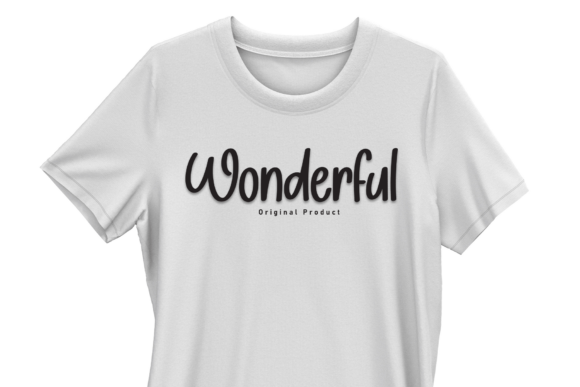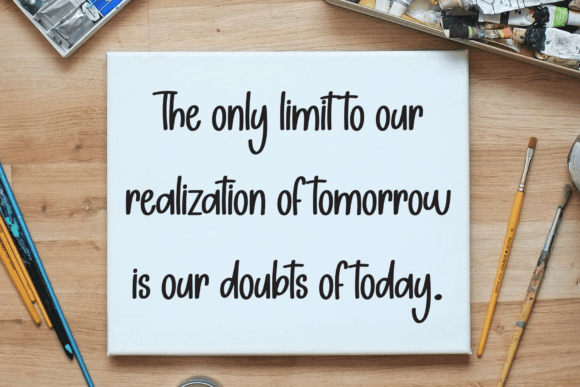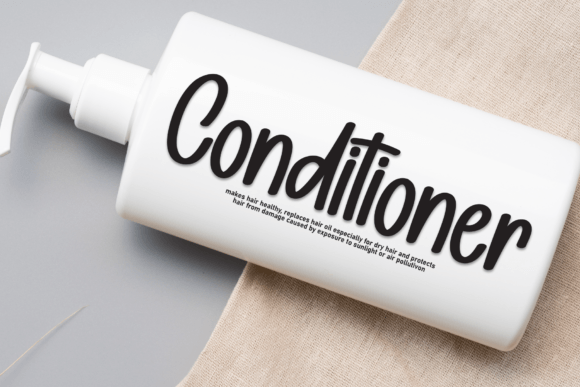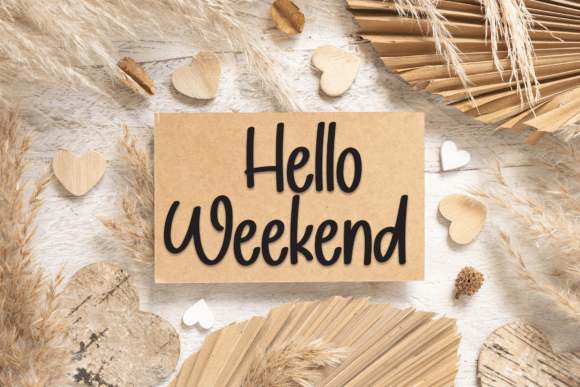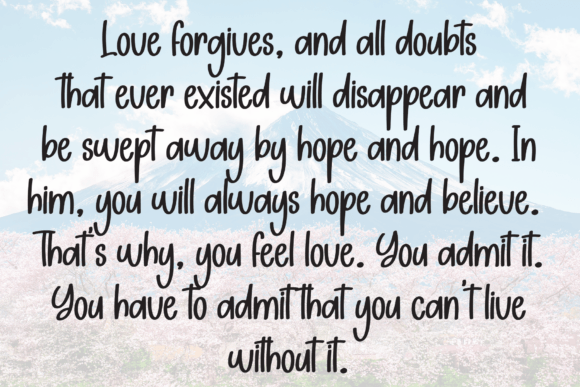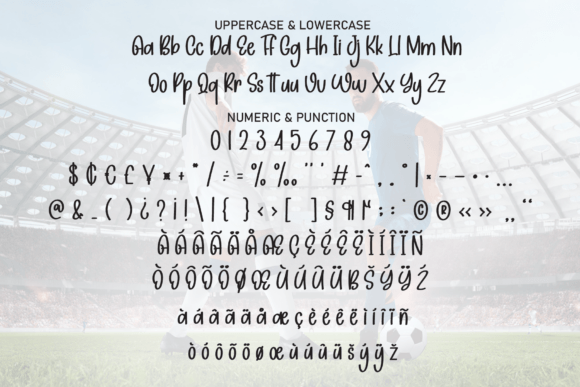
Introducing Football Match Font: The Ultimate Choice for Sports-Themed Designs
Are you a designer or crafter looking for a font that embodies the excitement and energy of football? Look no further than Football Match Font, a bold, handwritten font that’s perfect for creating stunning designs related to football, games, and fun events!
What Makes Football Match Font So Special?
Football Match Font is a unique and eye-catching font that’s specifically designed to capture the spirit of sports. Its bold, playful style and strong letters make it an ideal choice for creating attention-grabbing designs that are sure to stand out. Whether you’re designing a poster, flyer, or social media graphic, Football Match Font is the perfect choice for adding a touch of excitement and energy to your work.
Key Features of Football Match Font
- Bold and Handwritten Style: Football Match Font features a bold, handwritten style that’s perfect for creating eye-catching designs.
- Strong Letters: The font’s strong letters ensure that your designs are clear and easy to read, even at smaller sizes.
- Playful and Fun: Football Match Font has a playful and fun vibe that’s perfect for designs related to football, games, and fun events.
- Highly Versatile: The font is highly versatile and can be used for a wide range of design projects, from posters and flyers to social media graphics and more.
Why Designers and Crafters Love Football Match Font
Football Match Font has quickly become a favorite among designers and crafters, and for good reason. The font’s unique style and versatility make it an ideal choice for creating a wide range of designs, from sports-themed posters and flyers to fun and playful party invitations.
Designers love Football Match Font for its:
- Customizability: Football Match Font can be customized to fit your specific design needs, making it easy to create unique and eye-catching designs.
How to Use Football Match Font in Your Designs
- Use it for Headlines: The font’s bold style makes it perfect for use in headlines and titles.
Football Match Font is a bold, handwritten font that’s perfect for designers and crafters looking to add a touch of excitement and energy to their sports-themed designs. With its playful style, strong letters, and high versatility, Football Match Font is the ultimate choice for creating stunning designs related to football, games, and fun events. So why wait? Download Football Match Font today and start creating your own amazing designs!